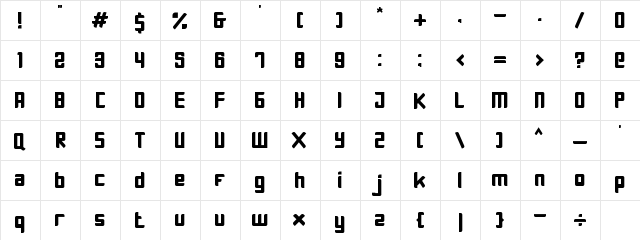
DIGGIEE FONT Regular
Design Context for DIGGIEE FONT Typeface
DIGGIEE FONT offers clean, dependable letterforms without strong stylistic allegiance, making it a practical choice for designers who need flexibility.
Pro Tip: Use DIGGIEE FONT in both headline and body roles to test its range before committing to a single application.